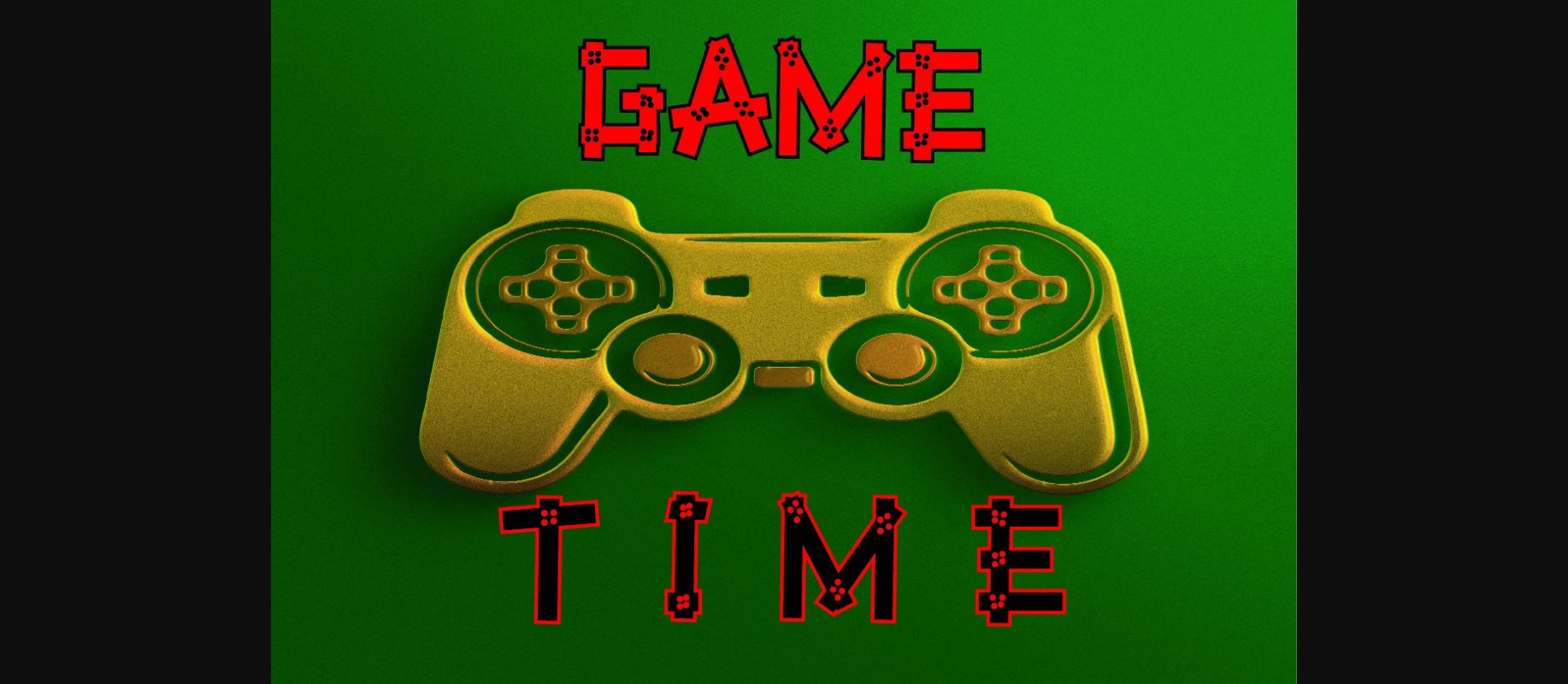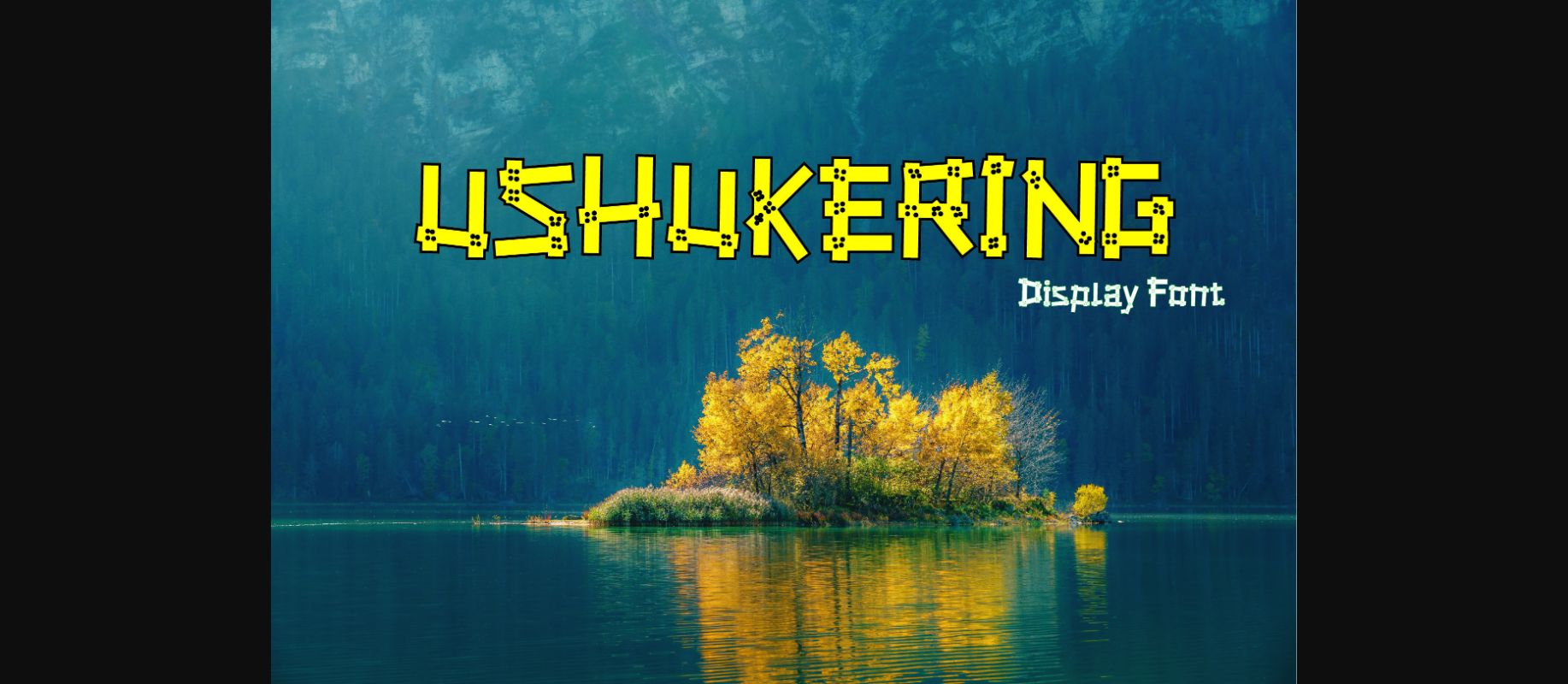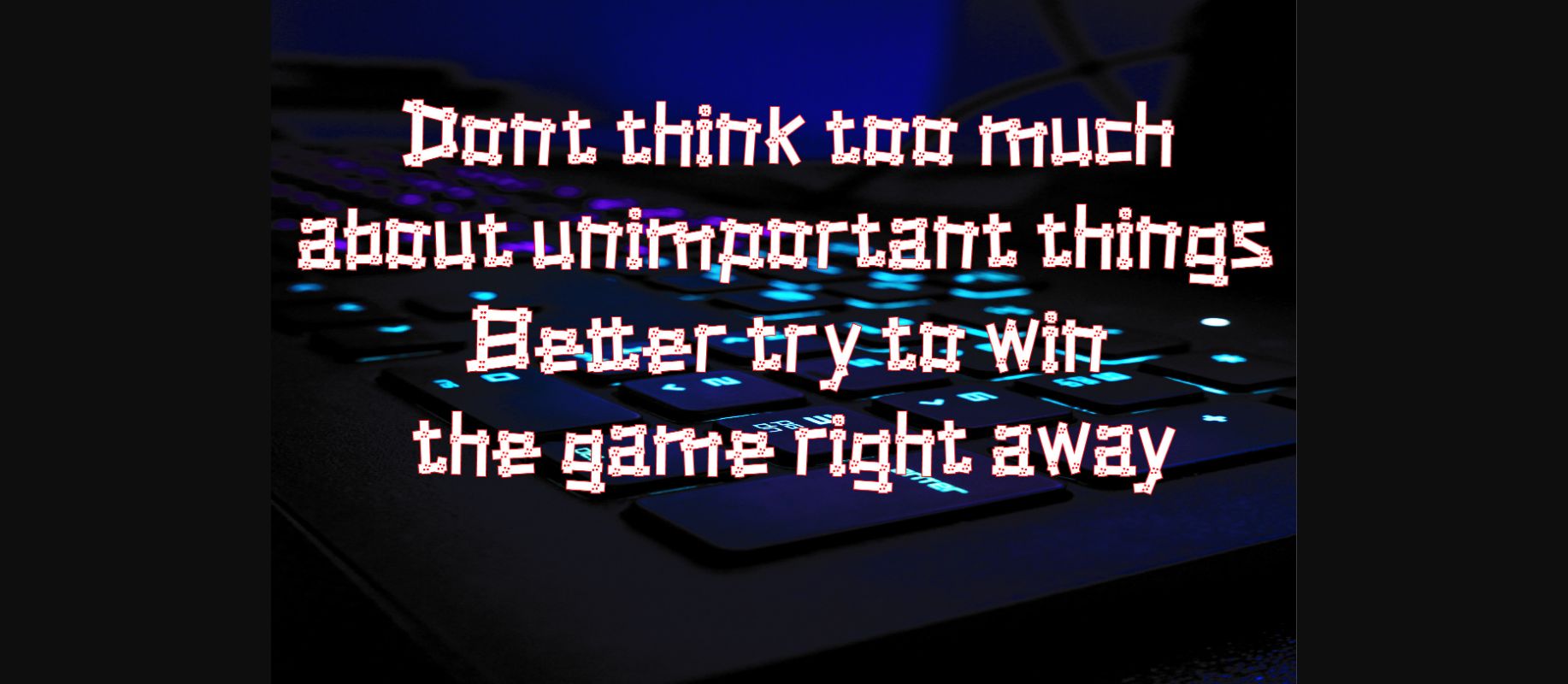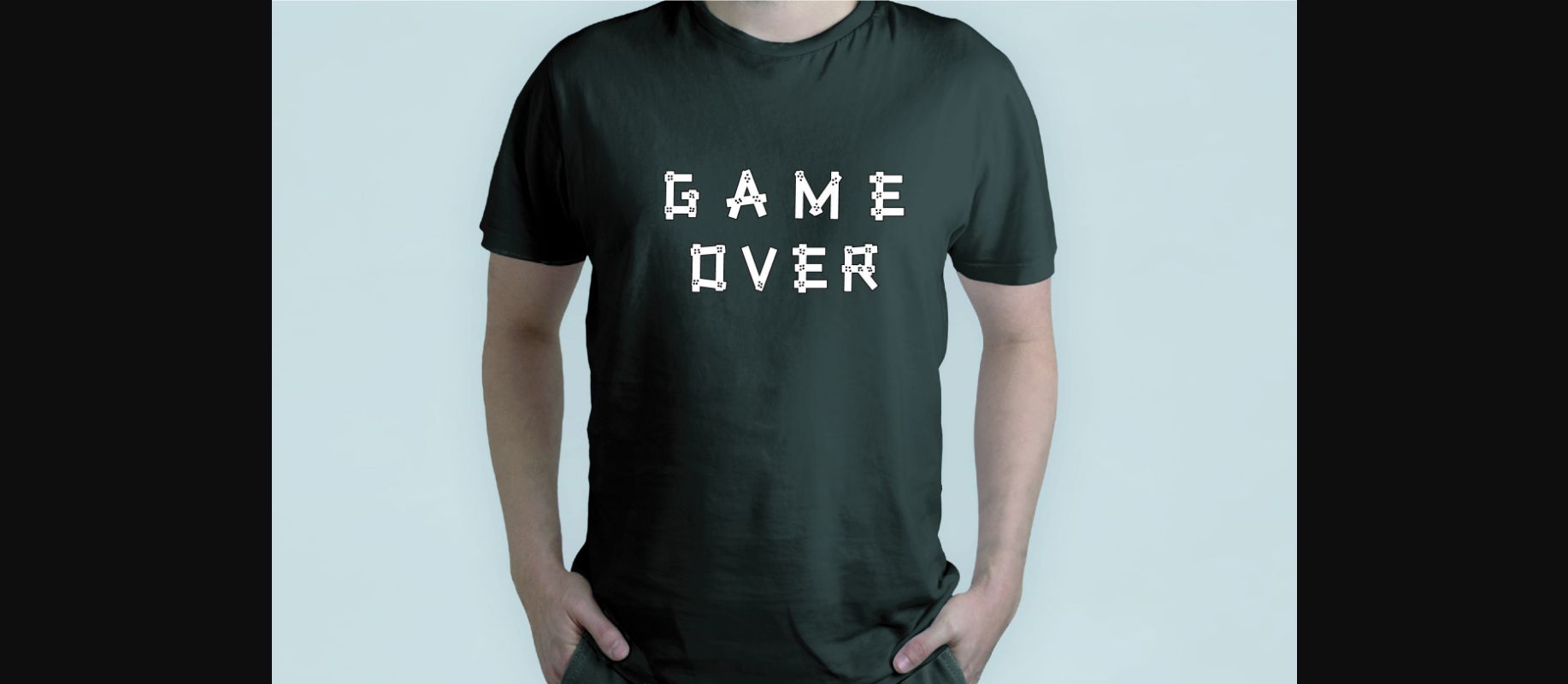
About Ushukering Font
Ushukering: Modern & Decorative Font to make every word you make more eye-catching. Great for social media post designs, branding, merchandise, posters, comics, display, etc.
Ushukering is a wood-themed font that is arranged in such a way as to produce a letter and is sweetened with a touch of nails as a wood binder.